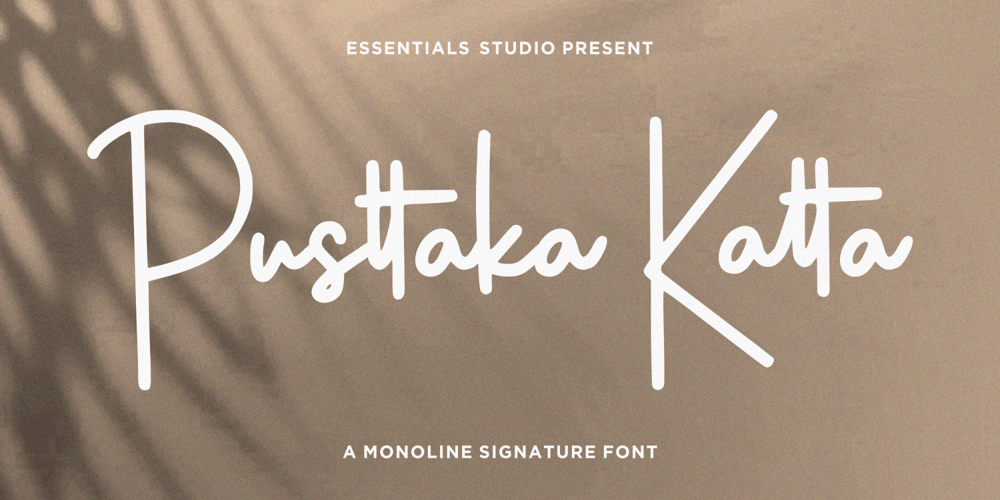
Pusttaka Katta Font Family was designed by Sulthan Mada Maulana Tsani and published by Essentials Studio. Pusttaka Katta contains 1 styles and family package options. Introducing by Essentials StudioProudly Present, Pusttaka Katta Is a A Monoline Signature FontPusttaka Katta is perfect for product packaging, branding project, megazine, social media, wedding, or just used to express words above the background.